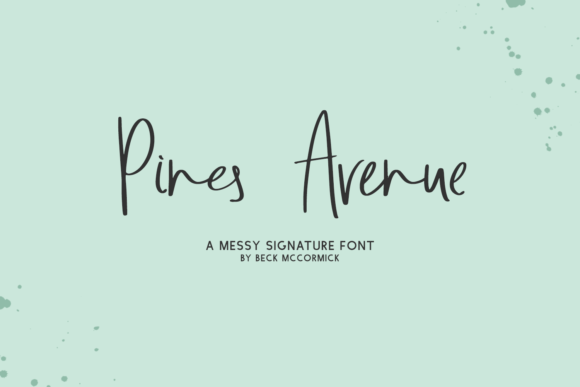
Journey to a world of elegance and charm with Pines Avenue, a calligraphy script font that dances with grace and sophistication. Its delicate strokes, inspired by the beauty of nature, bring a touch of whimsy and romance to every design it adorns.
With a modern twist on a classic style, Pines Avenue elevates your projects to new heights, whether you’re a seasoned designer or just starting out. Its free-flowing lines and subtle curves create a visual harmony that captivates the senses, making it the perfect choice for a wide range of creative endeavors.
Embark on a creative adventure with Pines Avenue and discover endless possibilities. Its versatility shines in wedding invitations, transforming them into treasured keepsakes that reflect the joy and love of your special day. It lends a touch of elegance to wedding favors and decor, adding a personal touch that makes your celebration truly unforgettable.
Pines Avenue flourishes in feminine and crafty projects, bringing a playful and charming spirit to handmade cards, scrapbook layouts, and other paper crafts. Its unique style breathes life into logos and branding, creating a distinct identity that sets you apart from the crowd.
Dive into the world of digital design with Pines Avenue and let your creativity soar. It enhances website designs, adding a touch of sophistication and flair that captivates visitors from the moment they land on your page. Create stunning quote graphics for social media that inspire and engage your audience, leaving a lasting impression that keeps them coming back for more.
Unleash your inner fashionista with Pines Avenue and create eye-catching feminine graphic tee shirt designs and other apparel. Its delicate lines and graceful curves add a touch of enchantment to your wardrobe, making every outfit a statement piece.
Pines Avenue is more than just a font; it's an experience that transports you to a realm of creativity and beauty. Its PUA encoding ensures effortless access to all the glyphs and ligatures, empowering you to bring your artistic visions to life with ease.